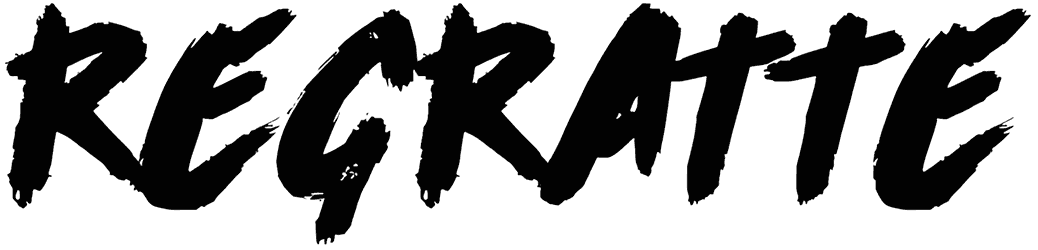
Regratte Font
There’s more than one way to spell regret, of course, that’s only if you don’t mind the typos! It’s like the name is subtly hinting at what happens if you don’t download this brush font now. You don’t want that tho, do you?
So before it gets ugly and you lose Regratte among the rest of its edgy parallels on RB, let’s make sure you have some fun with it at least, in music posters, apparel design, beach party flyers, etc.